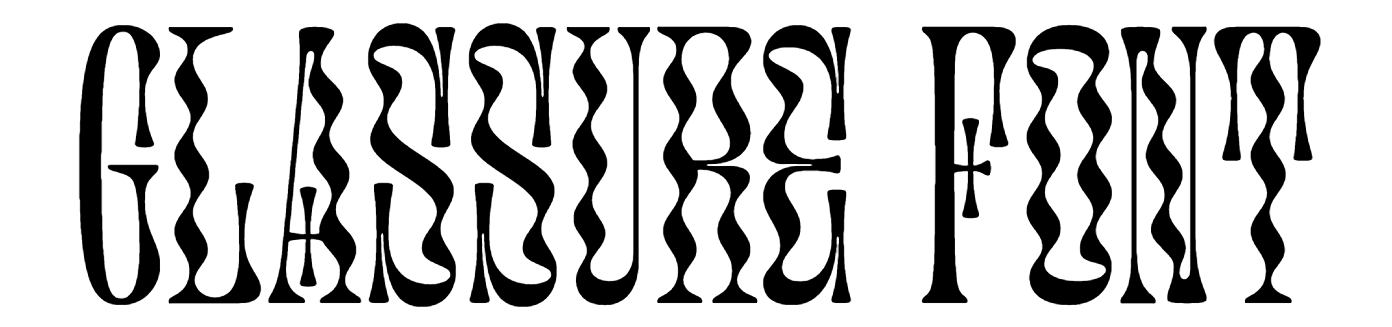
Glassure
Glassure is a fancy font (2019). Bold and full of character, it's built to stand out rather than blend in. You can download it for free and test it with your own words in the preview above.
What You Can Type With Glassure
Glassure covers the full alphabet in upper and lowercase, plus all ten numbers, so you can set names, dates and prices without switching fonts. Common punctuation such as &, !, ? and @ is included as well. It doesn't include accented letters such as é or ñ, which makes it an English-only font.
Where Glassure Works Best
Glassure is a natural fit for posters, logos and eye-catching headlines. Use it for one standout word or headline and let simpler fonts handle the rest.
Does Glassure support accented letters?
No. Glassure has no accented letters such as é, ñ or ü, so it's best for English text.